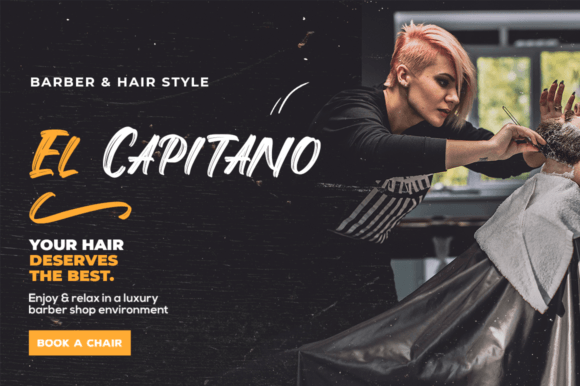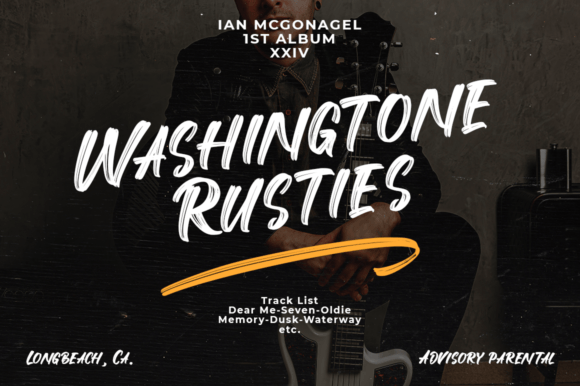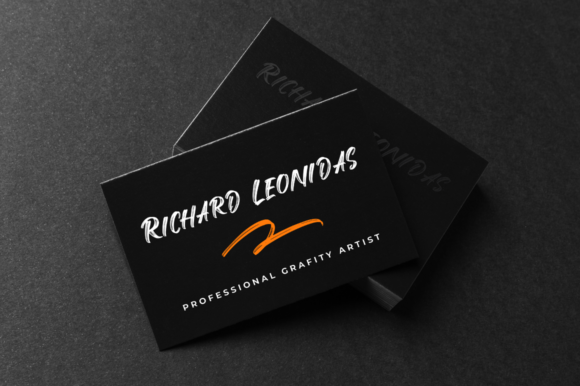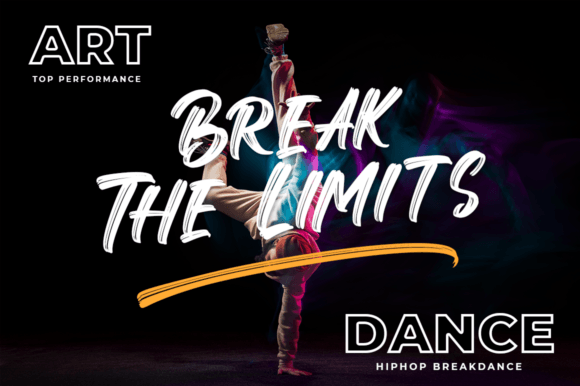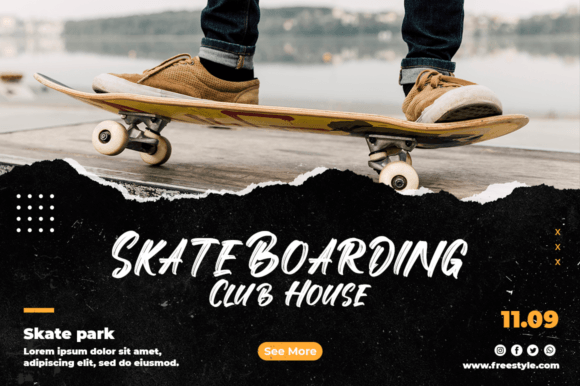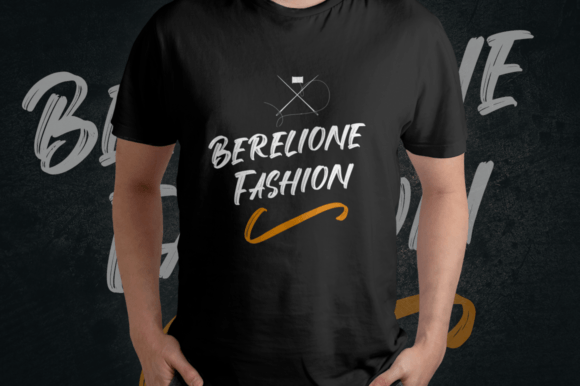
Introduction to Forward Brush Font
Forward Brush is a gorgeous and bold brushed display font, crafted to give your headlines and logotype projects a stylish touch.
This font reads as strong, confident, and dynamic, and can add tons of nostalgic character to your designs .
Key Features of Forward Brush Font